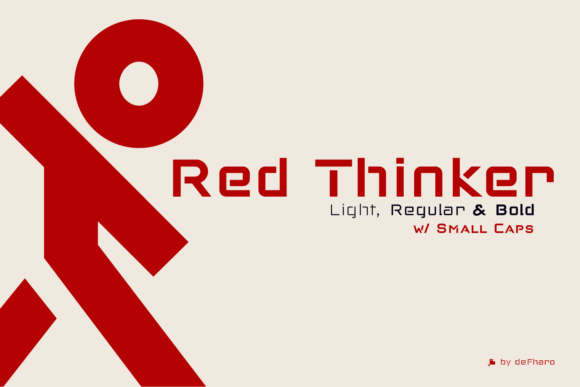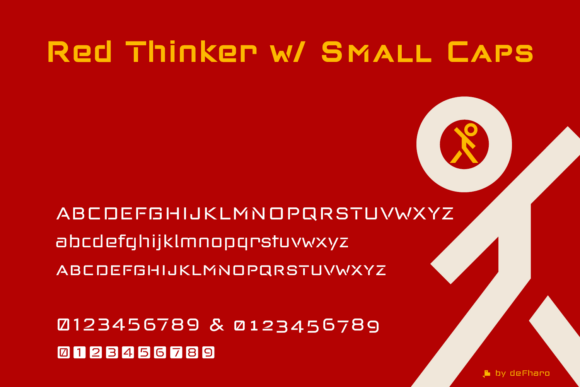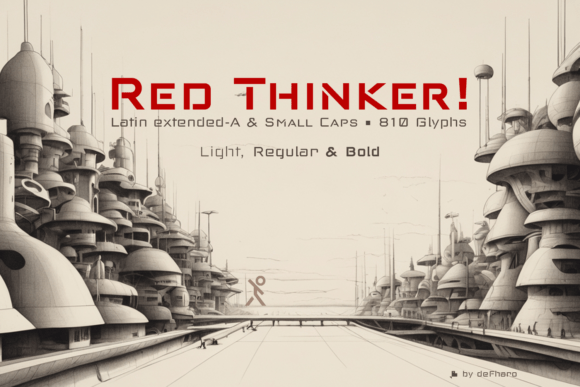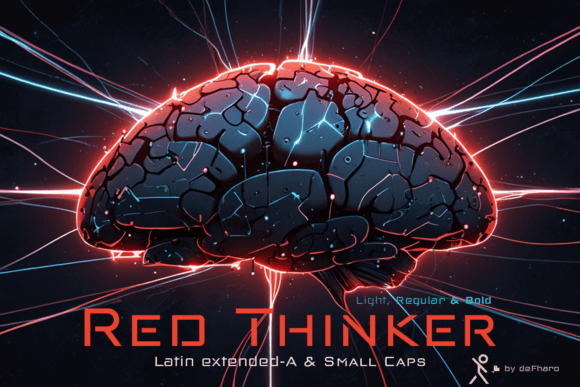
Red Thinker Font
About the Red Thinker Font
The Red Thinker Font offers a perfect balance of form and function for your design needs. Red Thinker is a sans serif typeface available in three weights: Light, Regular, and Bold, including small caps. It features a square proportion and blends soft curves at the outer corners with straight lines inside the characters, a semi-stencil design that gives it a technological and futuristic look.
– Red Thinker is a true heir to the geometric fonts of the early 20th century, inspired by the Bauhaus school, and is specifically designed for use in any size, both on screen and in print.
– Red Thinker is a highly versatile font for graphic design; you can use it in advertising posters, video games, movie titles, logos, editorial design, and more.
Red Thinker Font Usage Examples
Red Thinker Font Example